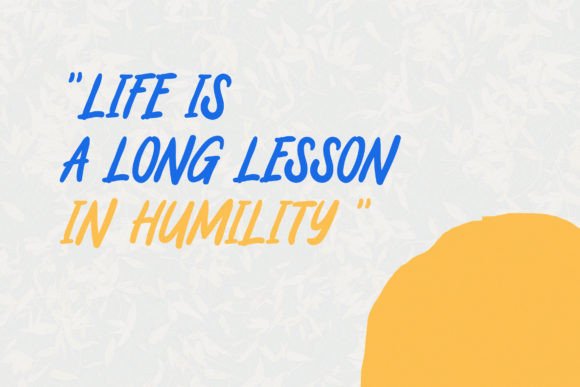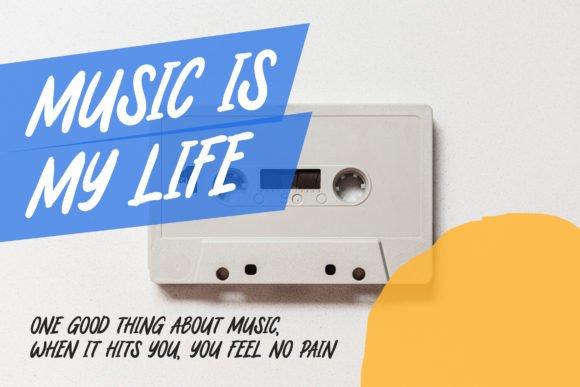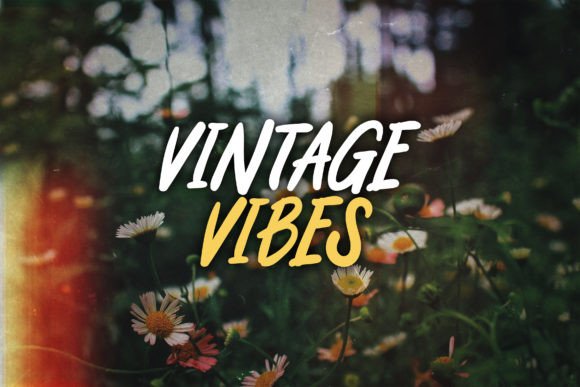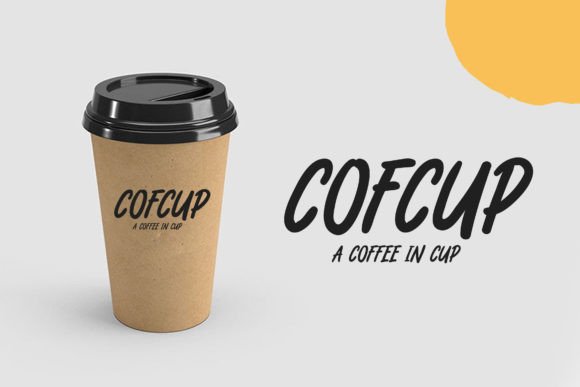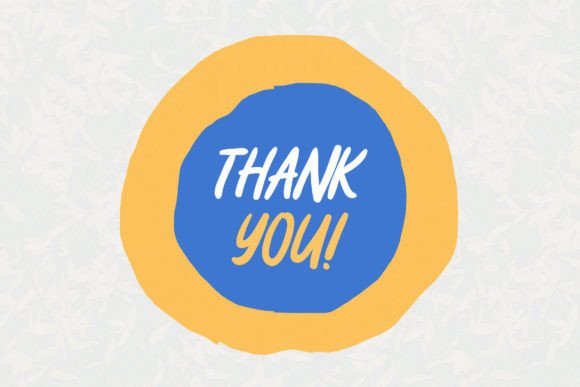
Hacreed Font
Hacreed, a font crafted with inspiration drawn from the artistry of hand-painted signs commonly found in stores, encapsulates a unique charm that seamlessly blends vintage aesthetics with a contemporary appeal. Tailored for a diverse range of applications, including marketing, branding, merchandising, and packaging design, Hacreed emerges as an ideal choice for those seeking to infuse their projects with a distinctive and nostalgic character.
What sets Hacreed apart is its ability to bridge the gap between the past and present. The font pays homage to the timeless allure of hand-painted signs, reminiscent of an era where craftsmanship and attention to detail were paramount. As a result, Hacreed becomes a versatile tool for designers looking to evoke a sense of nostalgia while maintaining a fresh and relevant visual language.
In the realm of marketing and branding, Hacreed becomes a powerful storyteller. Its strokes convey authenticity and a human touch, forging a connection between the brand and its audience. Whether applied to logos, promotional materials, or packaging, Hacreed adds a layer of character that goes beyond mere visual aesthetics.
Merchandising experiences a revival through the lens of Hacreed. The font injects personality into product designs, giving them a unique identity that stands out on the shelves. Its ability to capture the essence of handmade craftsmanship makes it a perfect choice for brands looking to communicate a sense of quality and authenticity.
Packaging design becomes an art form with Hacreed. The font’s ability to evoke a sense of heritage and craftsmanship enhances the overall brand narrative. It transforms packaging into more than just a vessel; it becomes a tangible representation of the brand’s commitment to quality and individuality.
The adaptability of Hacreed is evident in its seamless integration into both vintage and contemporary design contexts. Whether you are reviving the aesthetics of a bygone era or pushing the boundaries of modern design, Hacreed lends itself effortlessly to the task, becoming a versatile companion in the creative journey.
In conclusion, Hacreed is not merely a font; it is a design tool that encapsulates the spirit of hand-painted signs, offering a bridge between the past and present. Through its application in marketing, branding, merchandising, and packaging design, Hacreed becomes a vehicle for storytelling, authenticity, and visual distinction, ensuring that every project it graces becomes a testament to the enduring allure of timeless craftsmanship.